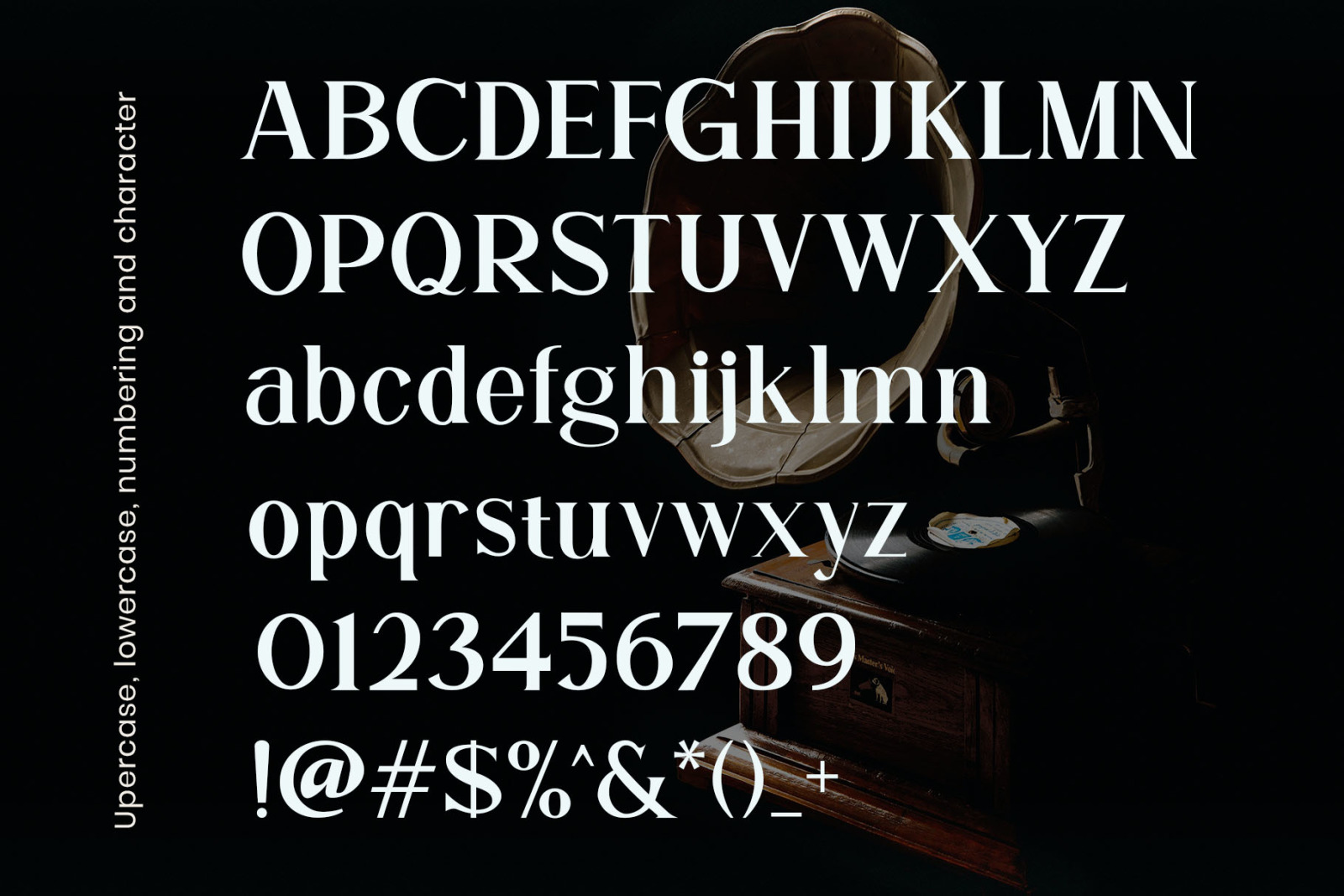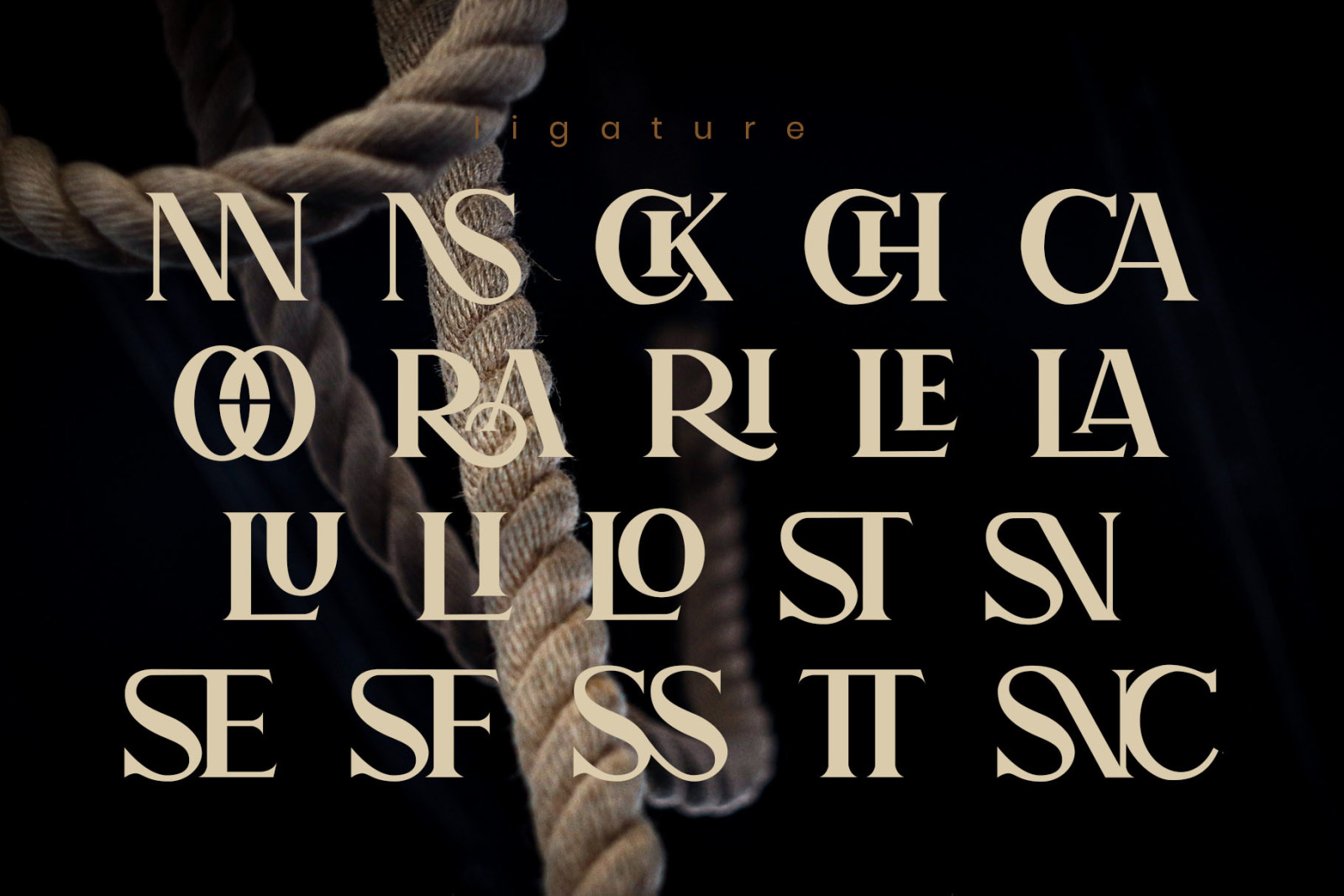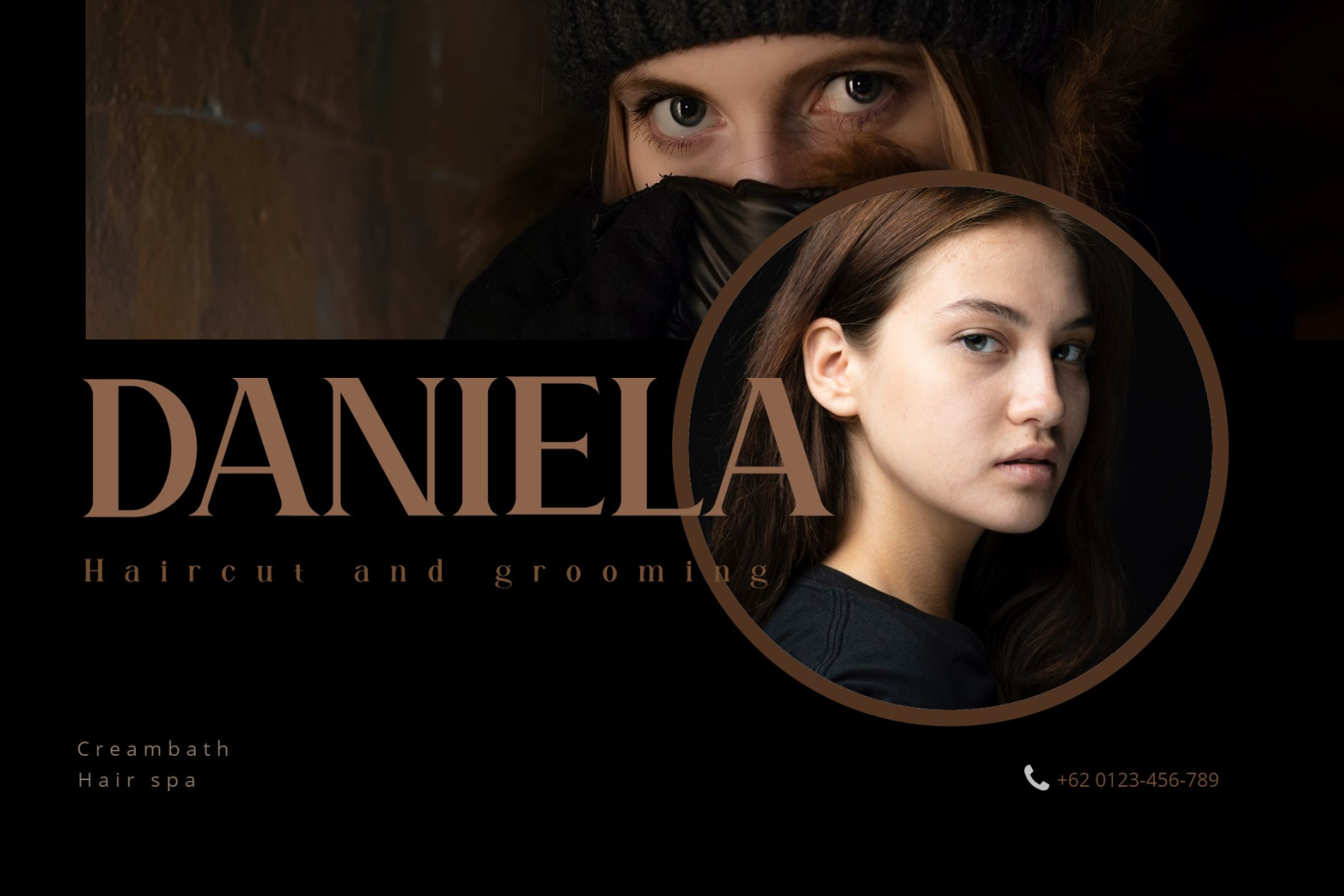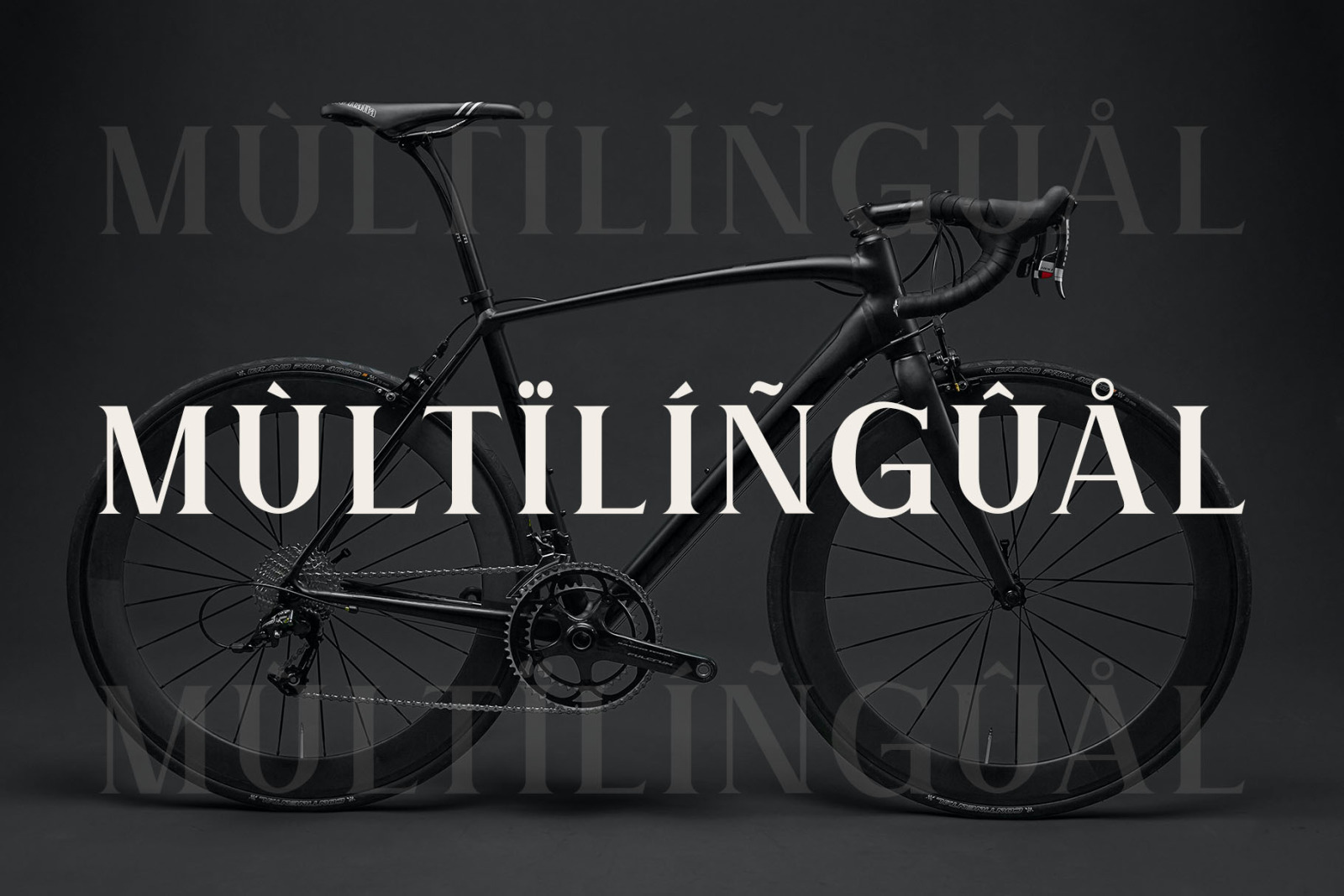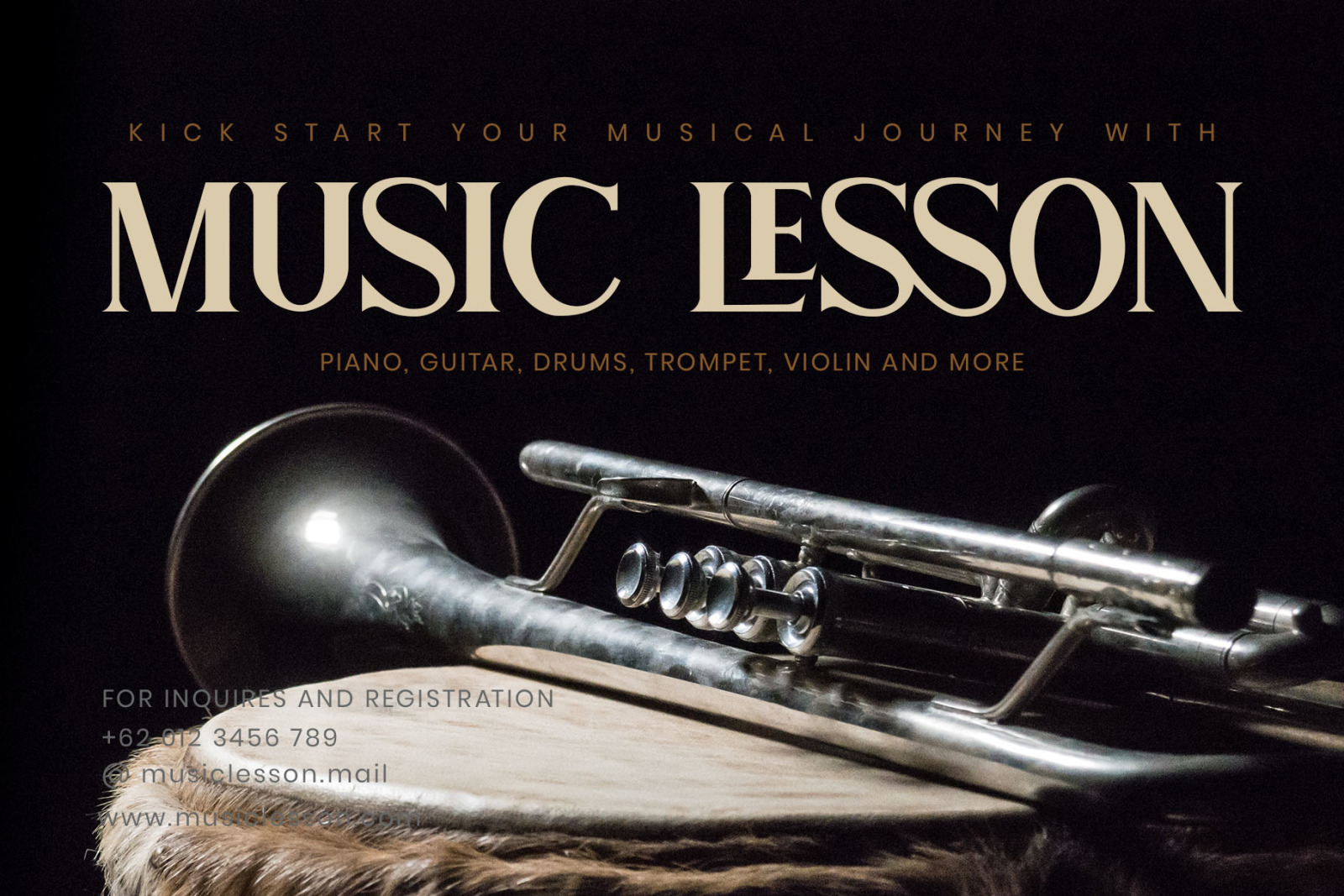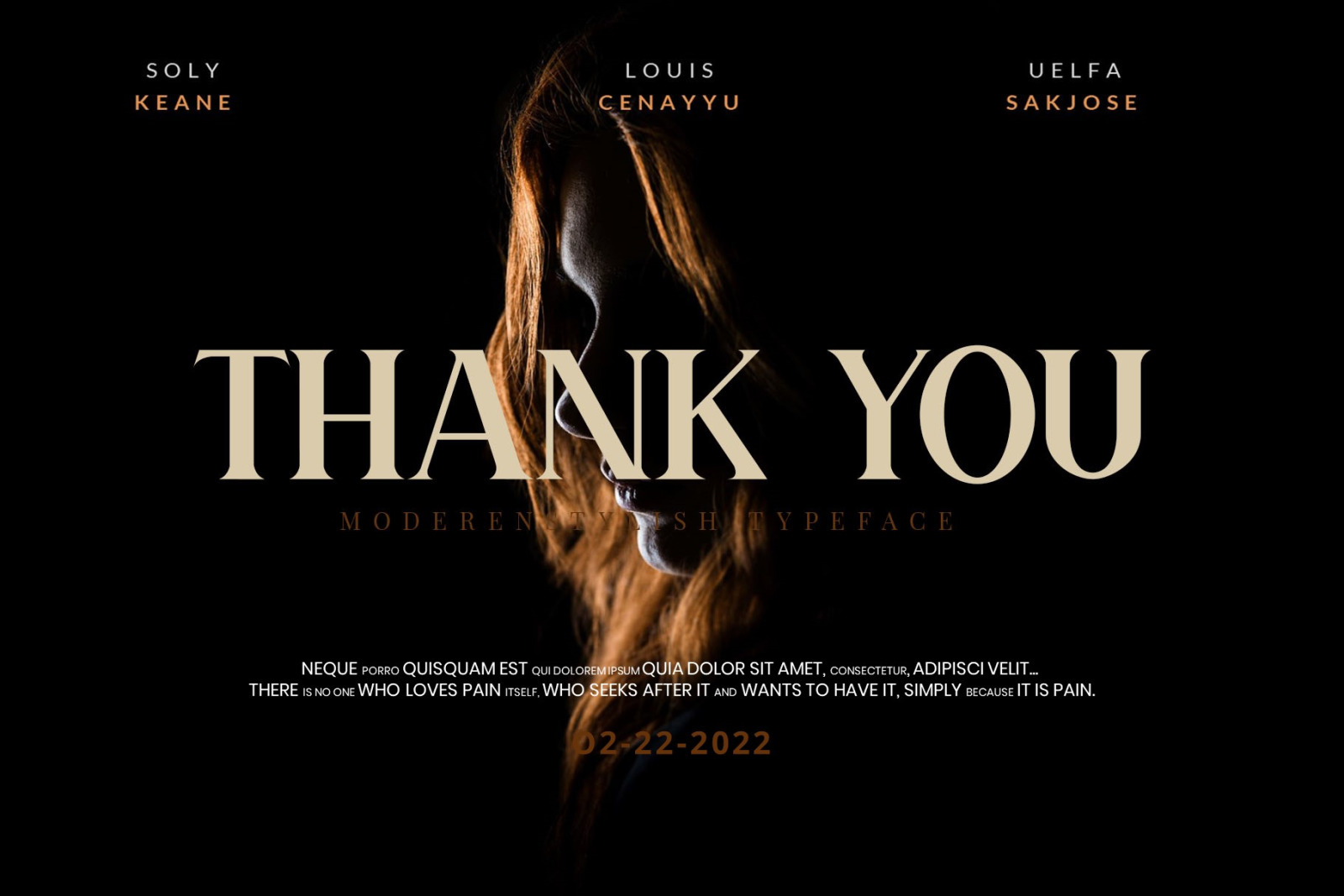
Crhastle Font
Present a Formal and Professional Impression with Chrastle Moderen Serif Typeface.
Do you want your design to look professional and elegant? If that's the case, CHLASTER is a font that you must try.
Really, what is Chrastle Serif?
Where in terms of font design, Chrastle serif are ligature arts that add certain character to a typeface, contributing to the unique feel and look that each of these fonts characterizes.
Choose the letter you like from a variety of variations to get a look that suits your taste.
Glaster is a very versatile font, It is a medium contrast display font perfect for branding projects, logos, wedding designs, social media posts, advertisements, product packaging, product designs, labels, photography, watermarks, invitations, stationery and any project, made with a high level of readability.
Chrastle Typeface is a modern stylish serif font, each letter has been carefully crafted to make your text look unique.